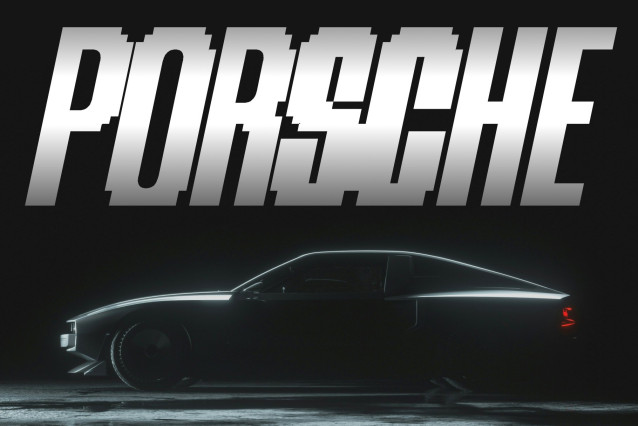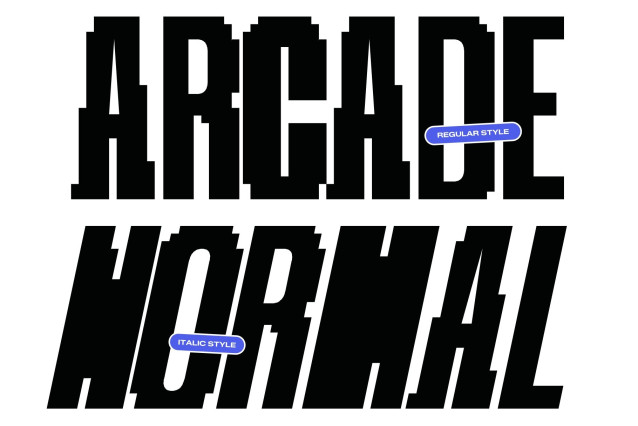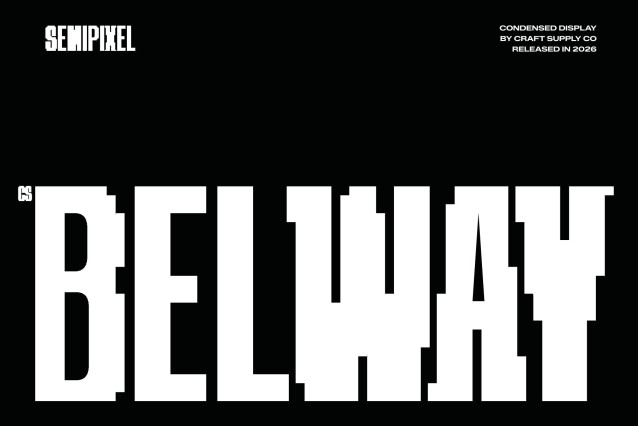
CS Belway Semipixel – Condensed Sans Serif Font: Where Compact Strength Meets Smooth Digital Precision
Compact Modern Forms with Strong Visual Impact
This is a condensed sans serif font designed to deliver powerful visual impact in tight spaces. Its narrow proportions and bold contemporary structure create a clean, confident appearance filled with efficiency, clarity, and modern energy. Every character is crafted to maximize readability while maintaining a commanding visual presence, making the font perfect for impactful headlines and space-conscious layouts.
Semipixel Style with Smooth Digital Geometry
This font combines pixel-inspired square forms with modern curves and refined details. Unlike traditional rigid pixel fonts, its smooth construction softens the geometric edges, creating a cleaner and more contemporary digital appearance. This balance between retro pixel aesthetics and modern typography gives the font a sleek futuristic personality.